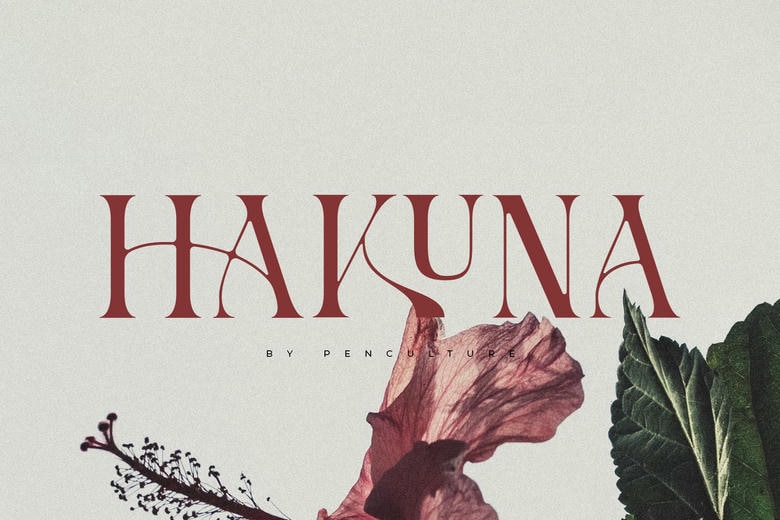
Hakuna Font
Hakuna is a modern serif font with a refined look that gives any project an elegant, sophisticated feel. Its graceful ligatures add a sense of luxury to your designs. Hakuna also includes a set of stylish alternates, giving designers more options and creative freedom.
It works well for high-end branding, editorial layouts, logos, wedding invitations, and more. Hakuna blends classic beauty with a modern style to help your typography stand out.
Hakuna Serif Font